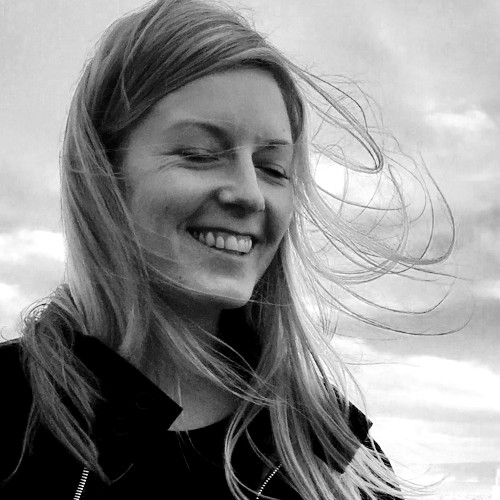
Why Spotify hired a dedicated typographer
Bianca Berning on working for the world's largest streaming service.
There can't be that many companies in the world that have a dedicated typographer, but Spotify is one of them. I was lucky enough to meet Bianca Berning, Spotify's staff typographer at Frontify's conference, Paradigms, in Morocco recently, when we caught up after her talk.
We spoke about everything from her first steps in typography to adapting type for different cultures and her advice for budding type designers.
Bianca is a designer specialising in typography, type design, and type technology. Currently, she is a staff typographer working on Encore, Spotify’s design system, where she drives innovation in typography in cross-platform product experiences. Before joining Spotify, Bianca led creative direction on brand typefaces and complex type systems for global companies like Amazon, BBC, FedEx, Indeed, and Google while at Dalton Maag.
How did you get into typography?
I did my communication design degree in Germany, with a focus on typography. Back then, it was just about text layout for print. I made this big newspaper as part of my dissertation, and I struggled with the type. I was trying to pick a font that would work for my project, and I reached out to foundries and was just like, ‘can I use this in my dissertation’? Lots of foundries are cool about these sorts of requests.
But the one that I really, really wanted, they came back and said, ‘No, you really gotta pay a full licence’. I was just like, ‘okay, I will pay the license, but can I modify some of the letters in order to make it suit my project even better?'. And they shut me down.
That intrigued me. It made me want to understand how type is made. So I went to the UK after my dissertation, and I did my Master's in typeface design. The intention was always to go back to graphic design and just be that person who knows a little bit more about type design. I never made my way back. I got sucked in. I joined Dalton Maag right out of university, and stayed there for over a decade, making brand typefaces for lots of big companies, and then I ended up with Spotify looking at the same sort of things, but from the other side.
How important is type to Spotify?
Important enough to hire a typographer. I know that the team behind Spotify’s design system, Encore, cares loads. For most companies, typography is a side project. So typically, design systems designers or product designers who know a little bit about typography would tackle typographic bugs on the side. Their day job is building UIs, so if a bug pops up, they fix it as best as they can or reach out to an external foundry to handle it.
At Spotify, they realised that typography shouldn't be a side project
And I think at Spotify, they realised that it shouldn't be a side project in maintenance mode. Text is everywhere and it’s important enough to get someone in that can do all of this maintenance, all of the bug fixing stuff, but also look into innovation. Someone who can look at how we can use type in the product a little bit more intentionally? How can we be a little bit more outstanding? How can we be brilliant at typography?
My line manager, Juli Sombat, was the one that made the case for my position. It didn’t exist before 2022 when I arrived.. And she and her manager are very, very well educated in typography, and so far they haven’t regretted hiring a typographer, as far as I know. I think there's an appreciation for this level of typographic care in different pockets within Spotify, but specifically in the UI part.
How do you make sure that the type that you use is culturally relevant?
We’ve got a lot going on. We are in 192 markets, and we localise the product in 74 languages. And most of those languages are now covered by our custom fonts that we rolled out last year.
That was a massive collaboration between different teams within Spotify and an external type foundry, Dinamo. We all came together and worked out a brief that we felt hit the spot and reflected the vibrancy and creativity of the Spotify community. And we will continue to put this level of care into every language and every script we support.
Has AI changed the way that you work?
It’s helped a little bit, but mostly in the background.
Working with type and typography in the kind of context that I'm working in, it made some of my processes a lot easier. So as an example, when we update a font, it's more often than not because we found a bug in the font. Imagine we found that our lowercase ‘i’ is missing its tittle and we make an update to the font and want to roll it out, there's this whole process that I go through in order to make sure that the only change that we make to the font is the one that was intended and we don’t break anything else. That used to be quite a manual process.
I am not a programmer or developer at all, but AI helped me build a tool where I can pull in the old font and the new one and it does most of the work for me. I get a visual comparison, I get overlays, and then I get a technical side by side that says, ‘these things changed in the new file. Did you mean to do this?'